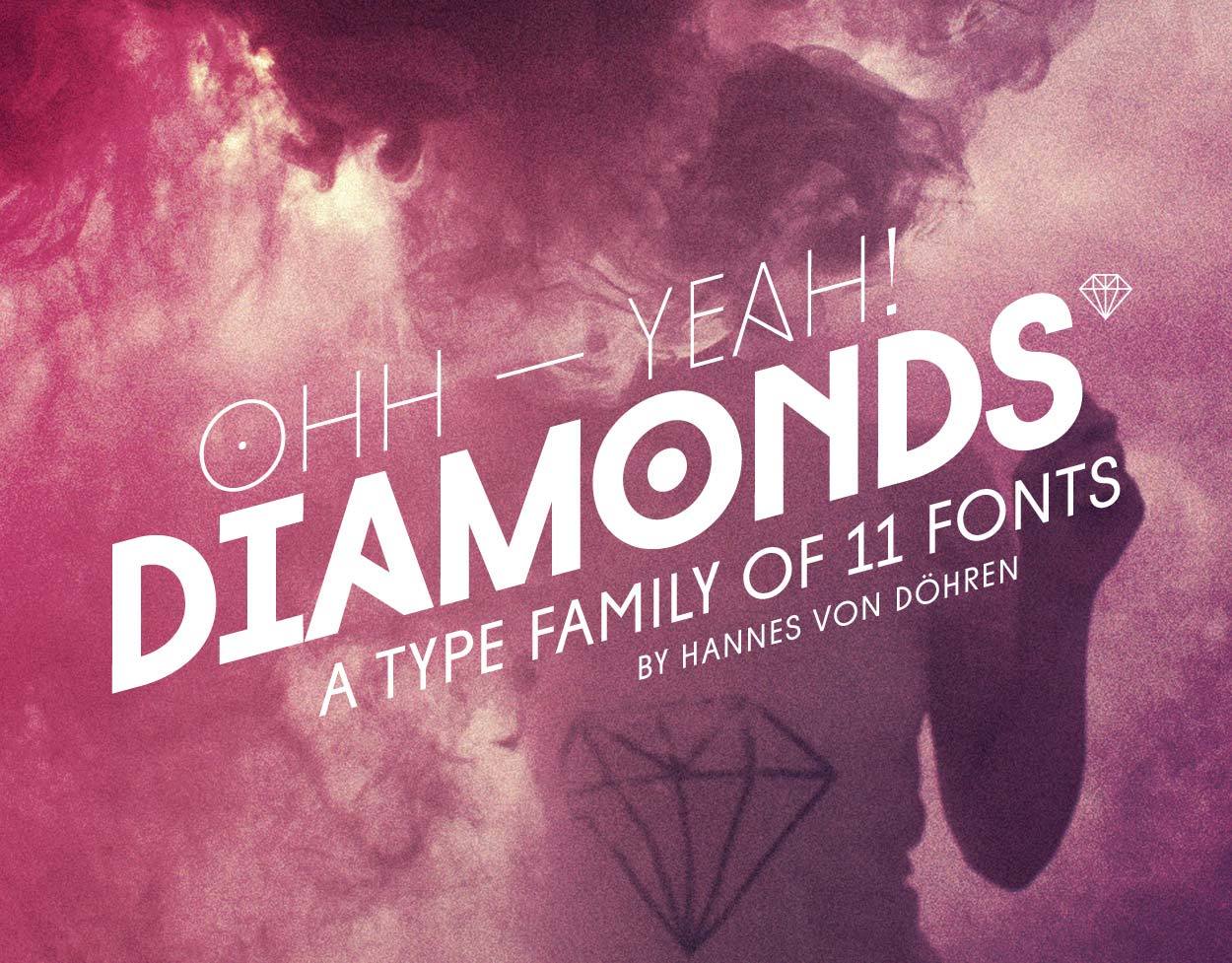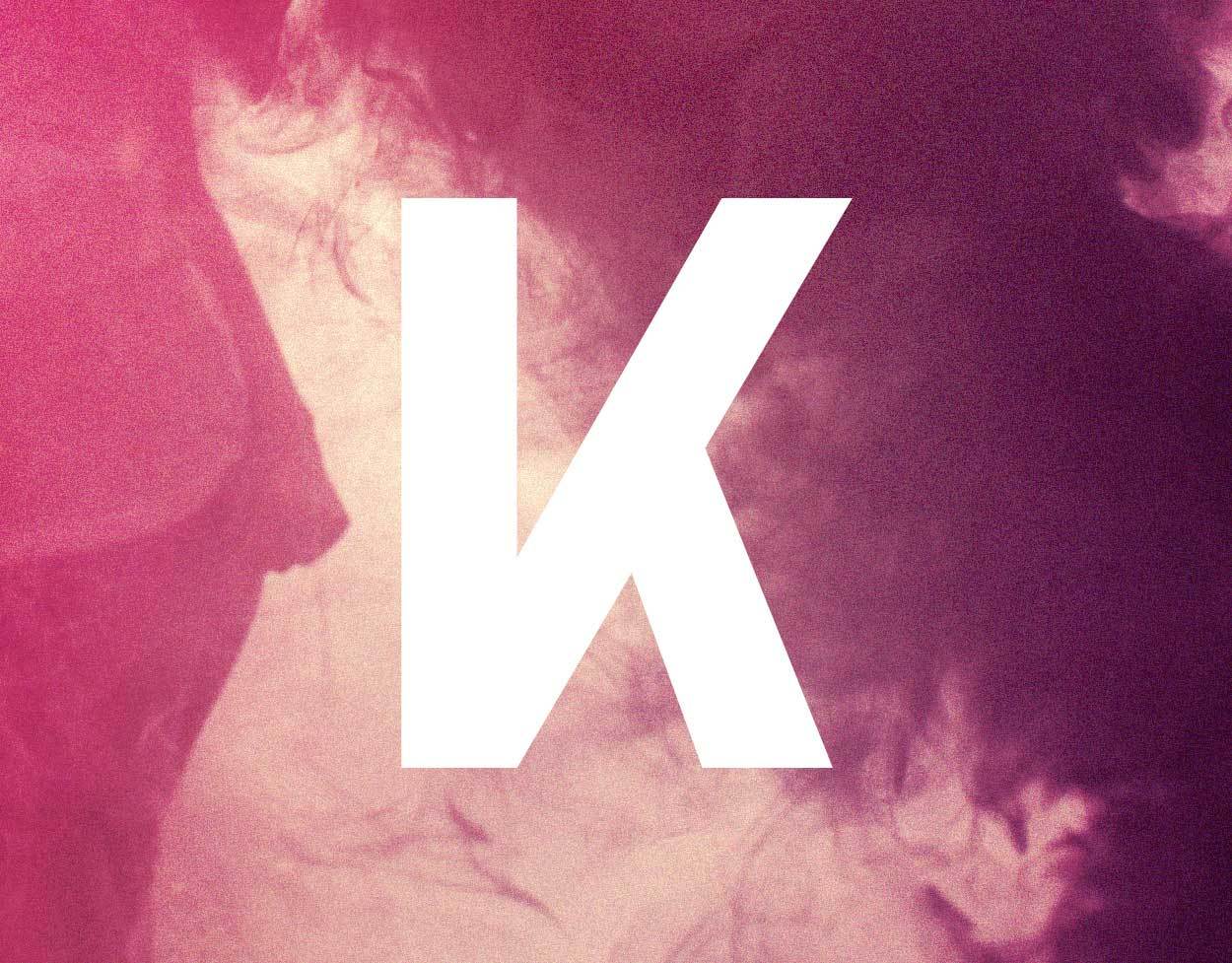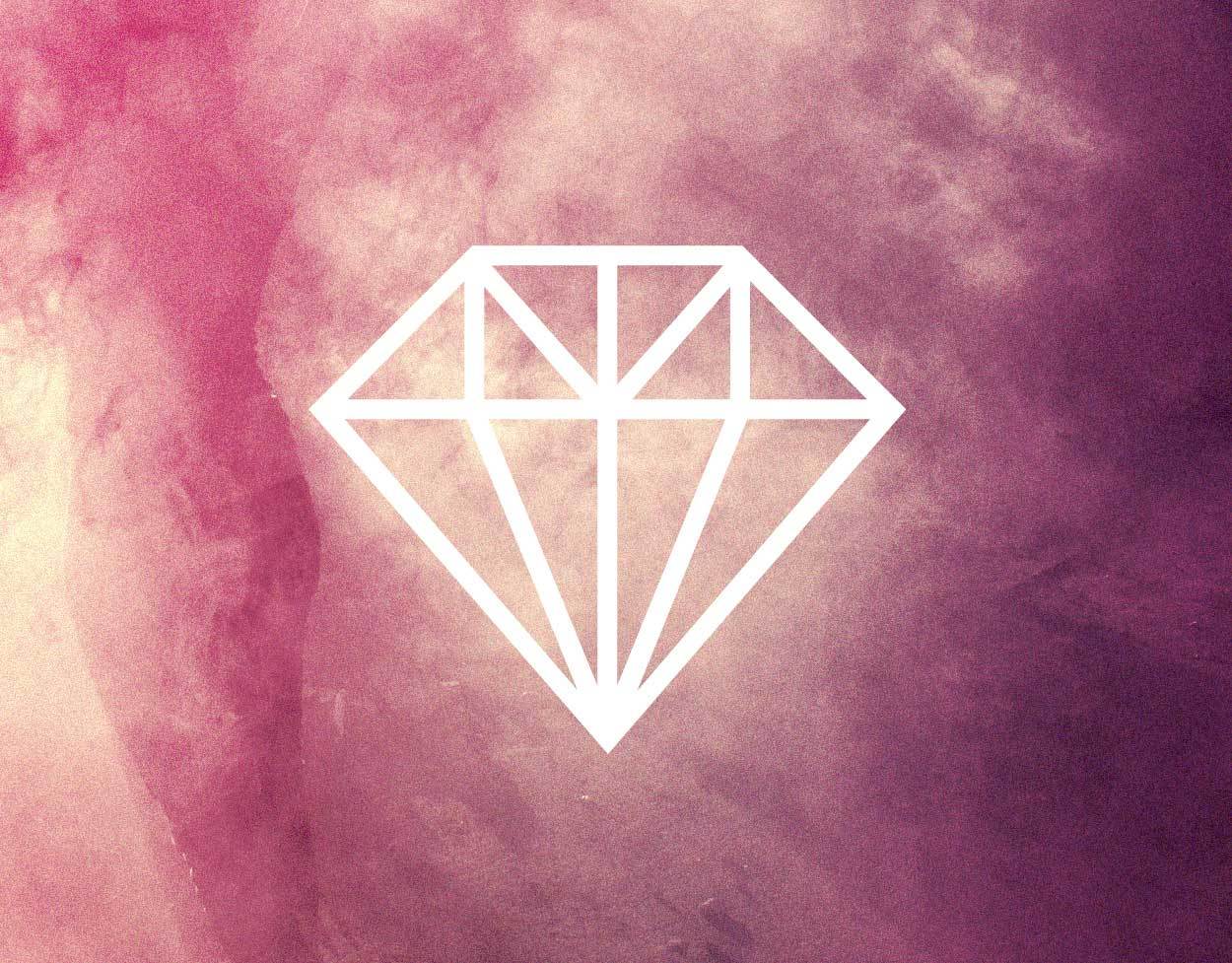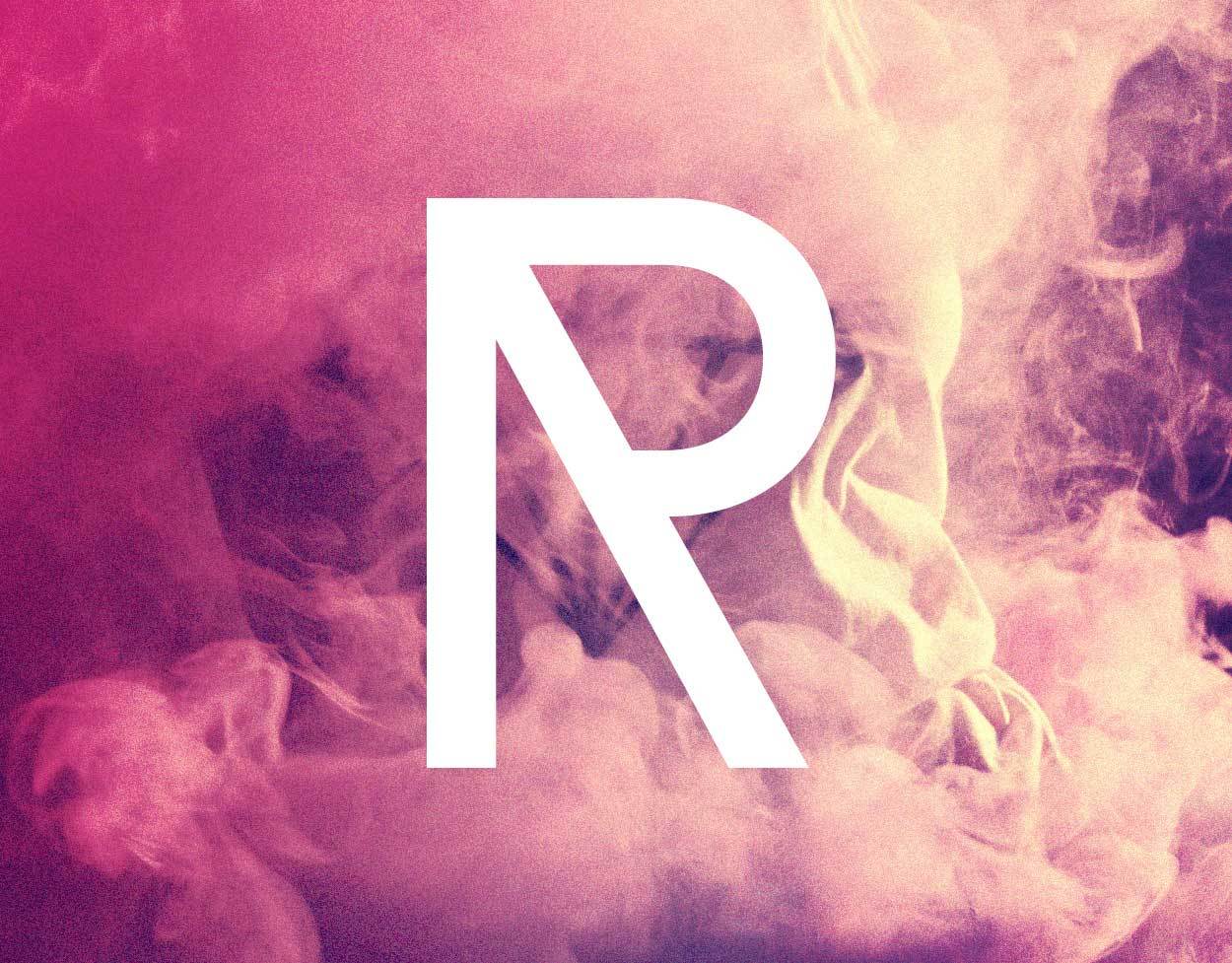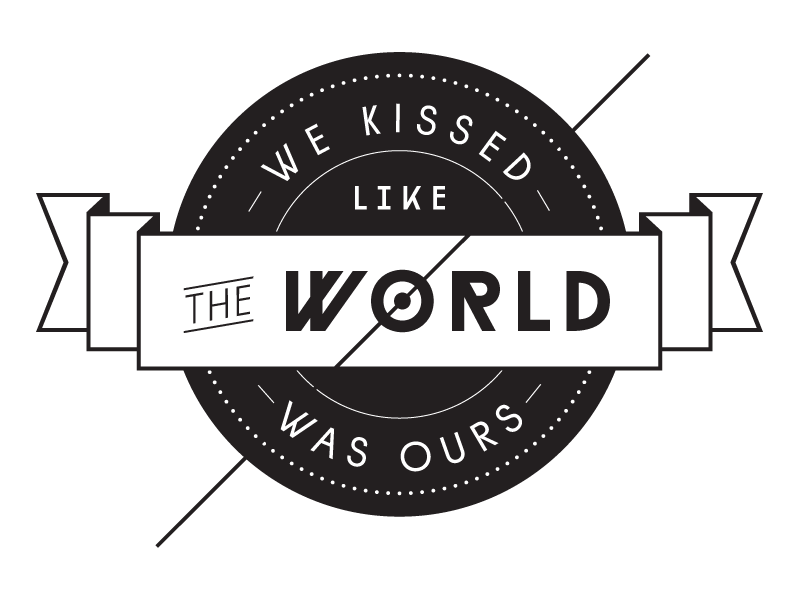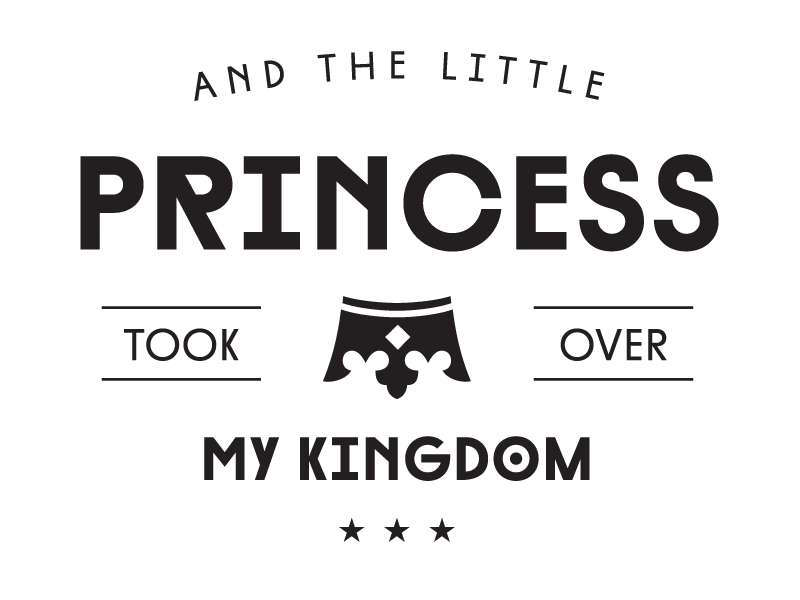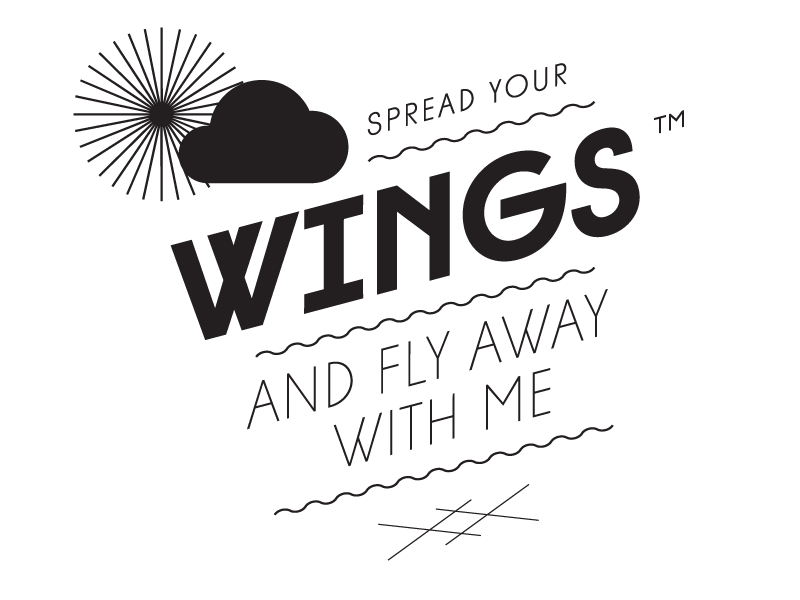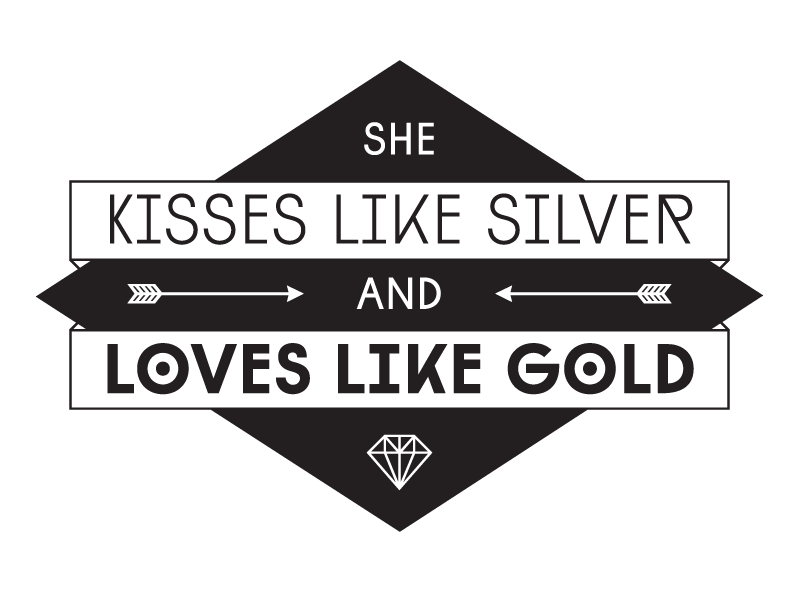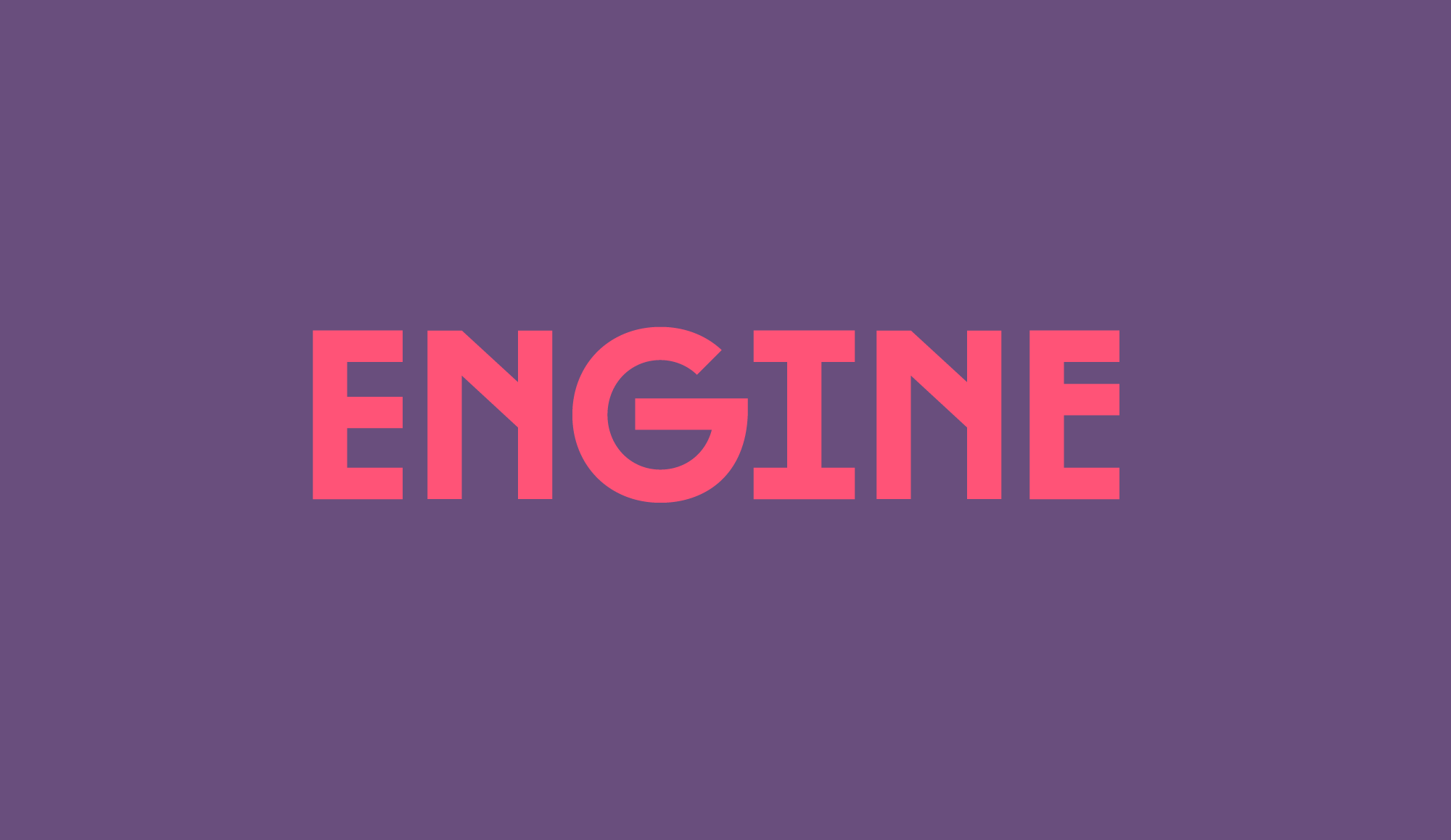
Diamonds
Diamonds Ds
Geomteric Experiments. Forms that are different but still readable.
I learned so many typographic rules and drew so many letters that I was curious to find out how a letter could look different from what I have learned but still be able to recognize it without any doubt. Based on geometric principles I searched for new solutions still compatible with common letterforms. Diamonds is meant to be stumbled upon, yet shine in the typographic jungle.
Forms or letters or forms or letters.
Thinking of Diamonds
What's up with these strange letter forms?
A display type face follows different rules than a text face: It is designed to catch attention. Catching attention can be acheived by making something different than the “standard”, something the eye stumbles across and the brain thinks: “Hey man, someting is not usual here – but I like it, its nice!”. The Diamonds type family is an experimental search for geometric new letterforms, which are still easy to read and generate some unexpected attention. The result is a straight and clear typeface pulled away from the path of classic and well learned letter shapes.
“I created a set of unusual geometric letterforms in ALL CAPS and different weights. I also wanted to have a controller to reduce the eccentric factor, so I created a sceond fitting alphabet of more known letterforms.” says Hannes von Döhren. All letters work homogenous together, so the user can decide which letters should stand out and which should be more silent.
Searching the unusual – special forms of special letters.
1 — Upper case letter A
The cross bar in the uppercase A is more conventional. It has a horizontal direction. The slightly higher position still gives some own characteristic to this letter.
OpenType Features – or what else you can do with it, besides designing your next cool brand.
A font of today’s needs has to include more than just the alphabet and some punctuation. Besides a big number of accented letters, making sure that the typeface has a good language support, a font should include several features for excellent typographic work joining forces with the layout applications of the time and of course the user. Here is a selection of what this font family has to offer under the hood.
SHOOT!
Discretionary Ligatures
If two letters have the nature to collide when used in combination a ligature is needed to solve this unwanted event. Ligatures are especially designed solutions for such letter combinations. This font contains a set of ligatures which are automatically substituted as soon as these letter combinations are typed in.
The Massive
Alternates
Besides the standard letters a font sometimes contains several versions of a letter called alternates. You can exchange the alternate with the standard letter by selecting it through the Opentype feature panel and every letter of the stylistic set will be exchanged. Often this results in a totally different optical appearance of the typeface.
1/2 Swag and 3/5 Style, bro.
Fractions
If fractions are needed anywhere an OpenType code makes sure that if you type any numbers combined with a slash between a fraction will automatically be substituted.
Rotating Italics
We designed the Italics of Diamonds with a special idea. If you type something in italic and rotate it exactly 15 degrees contraclockwise the stems will be exactly vertical again. You can use this effect to write your sentence or headline with a special impact.
Ornaments
Additionally to the letters this font family contains a big set of ornaments, borders, catchwords and symbols fitting to the characteristics of the typeface. The user can combine text and ornament elements keeping a homogenous design language. Here is a small selection:
The world is yours.